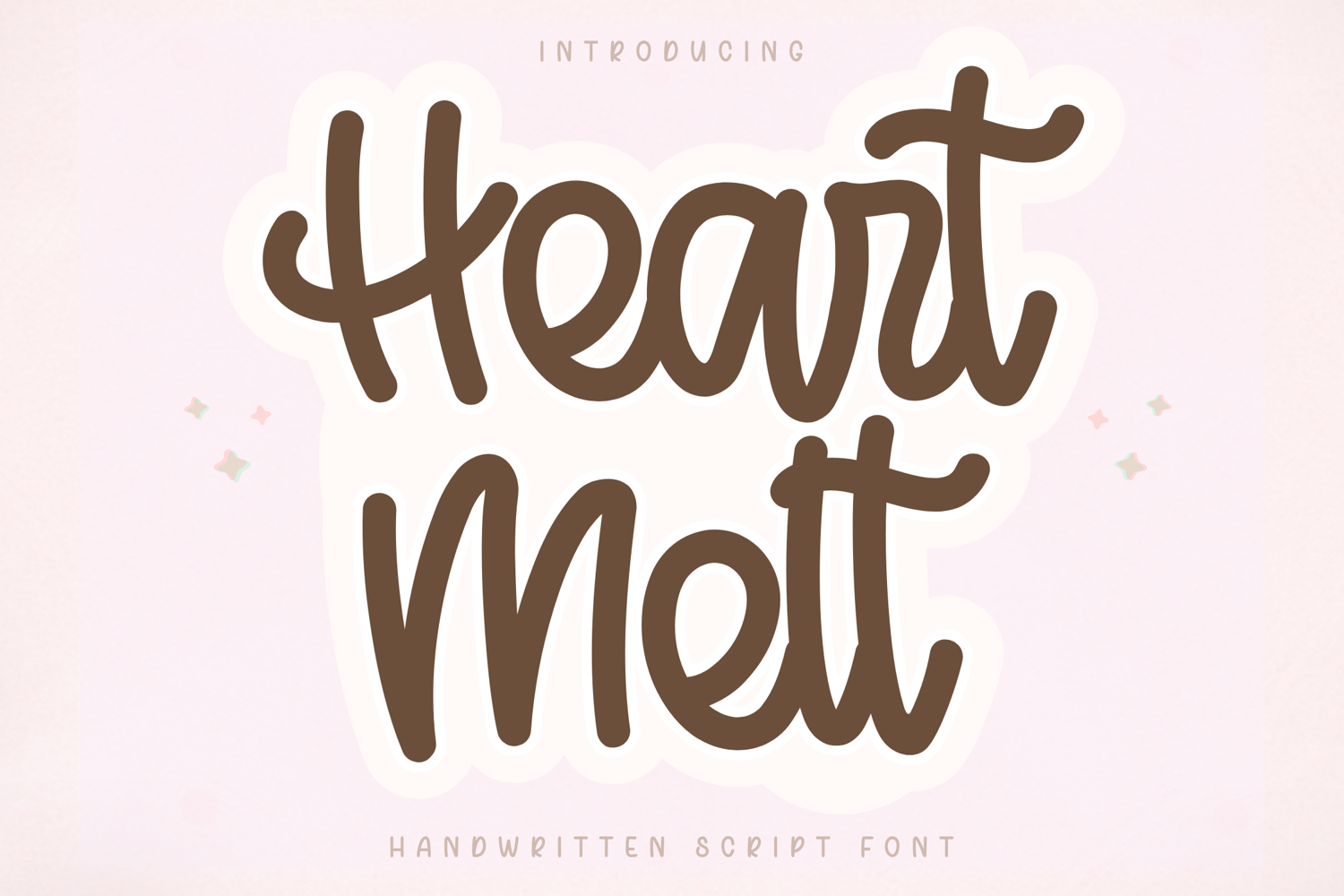
Heart Melt - Handwritten Script Font
Heart Melt – Handwritten Script Font
Heart Melt is a cute and playful handwritten script font designed to bring a soft and heartwarming feel to your creative projects. With its smooth curves and rounded letterforms, this font creates a natural handwritten style while maintaining excellent clarity and readability.
Featuring a bold and slightly outlined look, Heart Melt delivers a strong visual presence that works beautifully for sticker designs, Cricut projects, and eye-catching creative layouts. Its clean and consistent strokes ensure smooth performance for both writing and cutting, making it perfect for everyday creative use.
Heart Melt is designed with smooth, rounded strokes and a bold presence, making it easy to use for both beginners and professional designers.